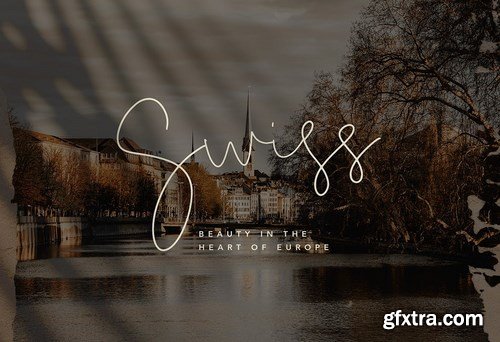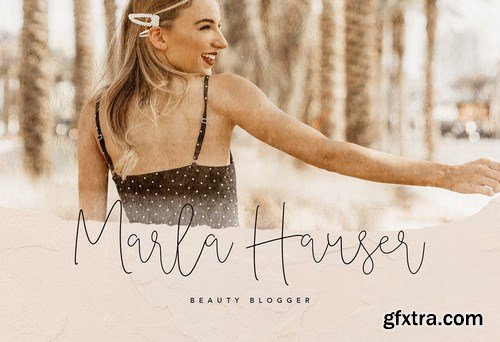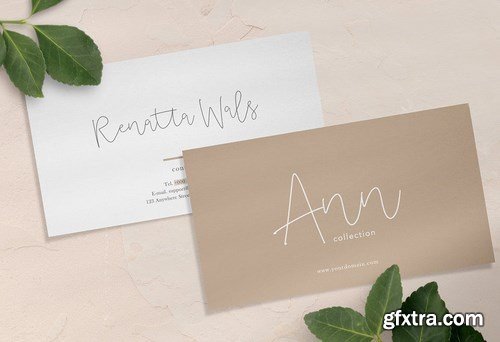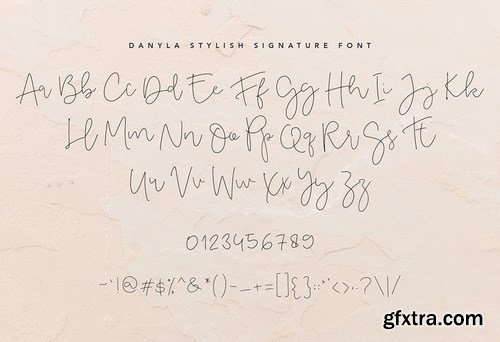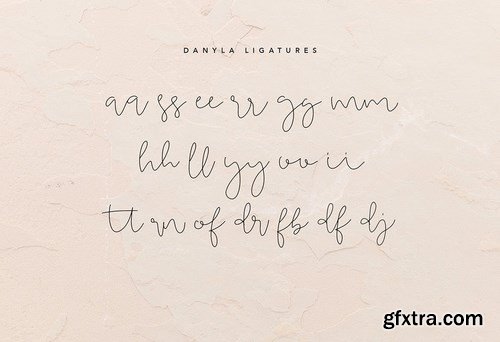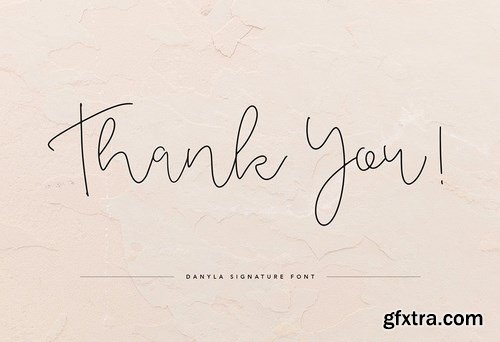
Danyla is a Beauty and Stylish signature font which is perfect for branding projects, logo, wedding designs, social media posts, advertisements, quoted text, signature, product packaging, product designs, label, photography, watermark, invitation, stationery, fashion, boutique, furniture, and any projects, it makes with a high level of legibility.